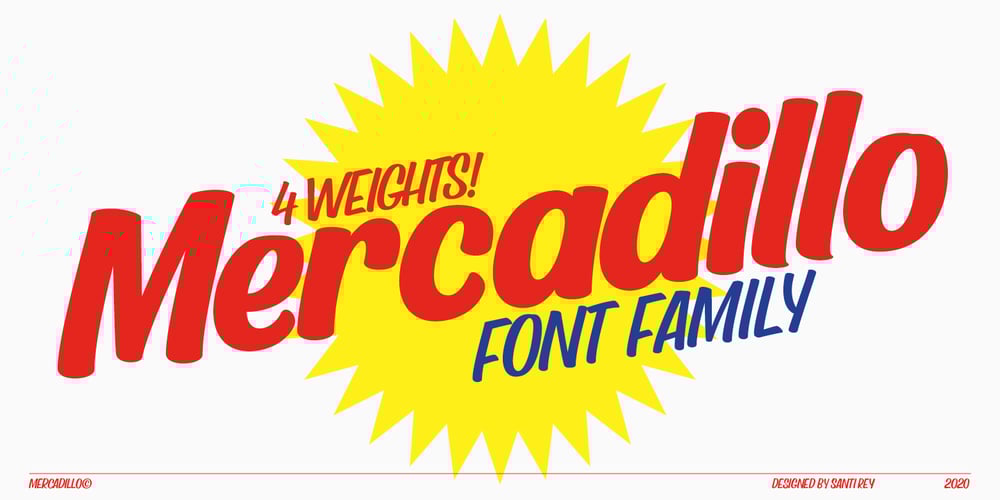
Mercadillo
Mercadillo font
Mercadillo Font Family was designed by Santi Rey and published by Monotype. Mercadillo contains 4 styles and family package options. Mercadillo is a casual script typeface based on the hand painted signs you can see in markets, shops and bars. Comes in 4 different weights (Black, Bold, Regular and Light) and it has OpenType features.